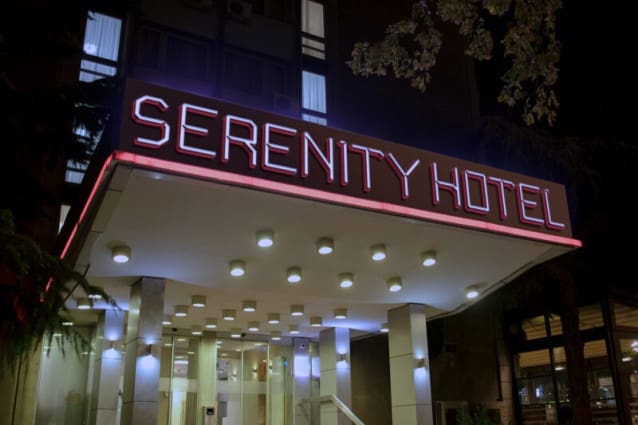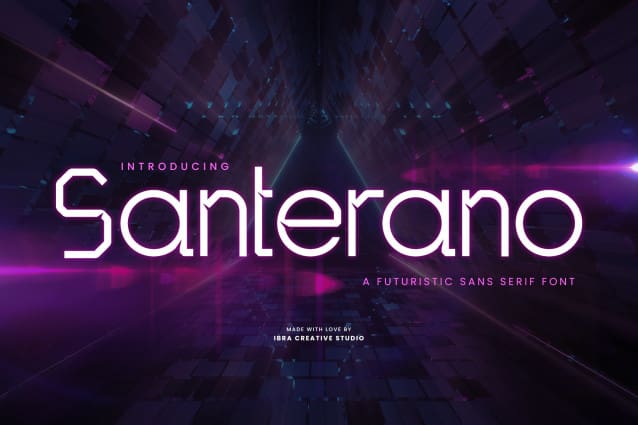
Santerano Futuristic Font
Santerano Futuristic Font, is a cutting-edge sans-serif font that epitomizes the essence of futurism in typography. With its sleek, minimalist lines and meticulously crafted geometric shapes, Santerano exudes a sense of modernity and technological advancement. Its letters are characterized by crisp, clean edges and a harmonious balance between thickness and spacing, projecting an aura of sophistication and innovation. This font is not just a typographic choice; it’s a visual embodiment of the future, making it an ideal choice for projects seeking a contemporary, forward-looking aesthetic that effortlessly captures the spirit of tomorrow’s design.